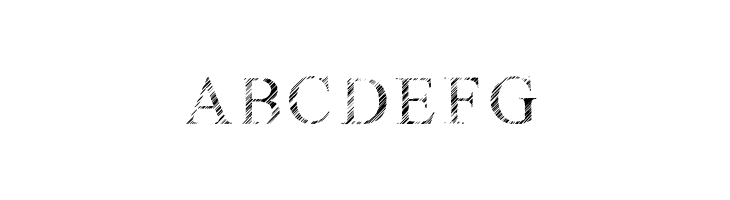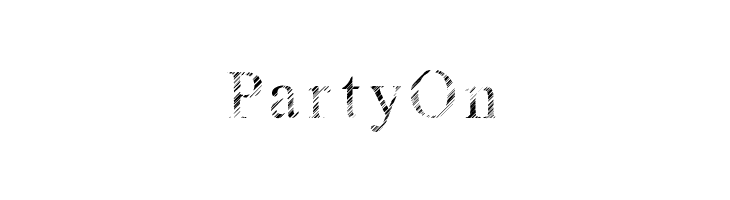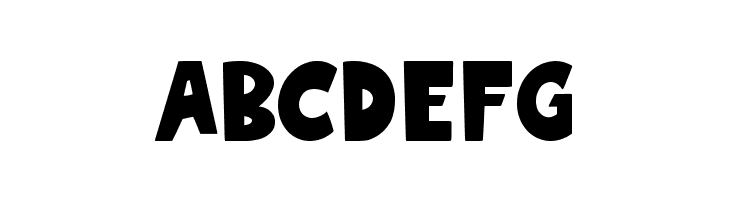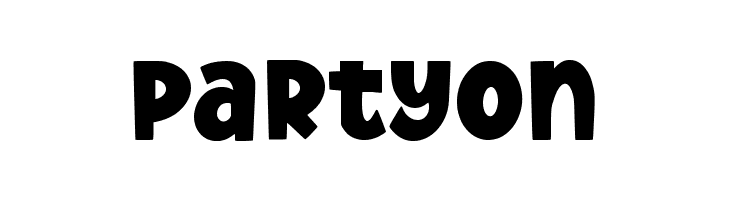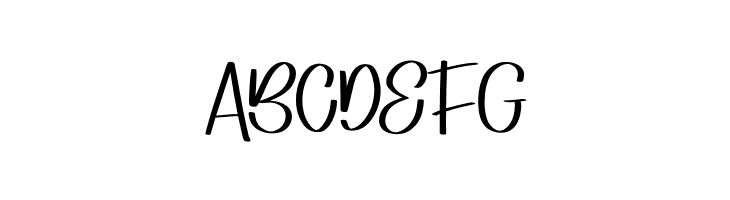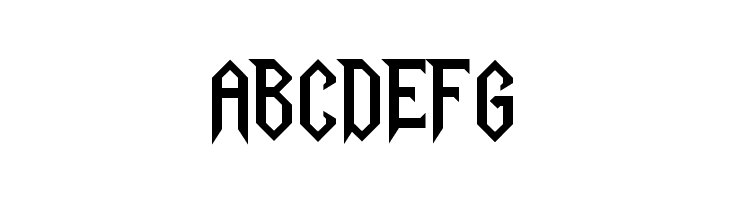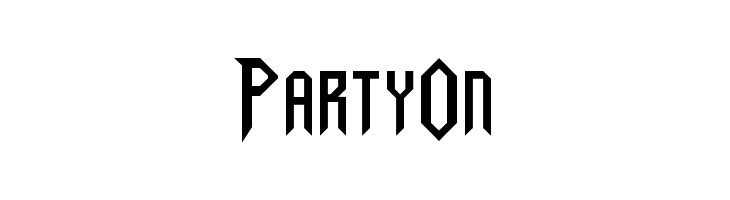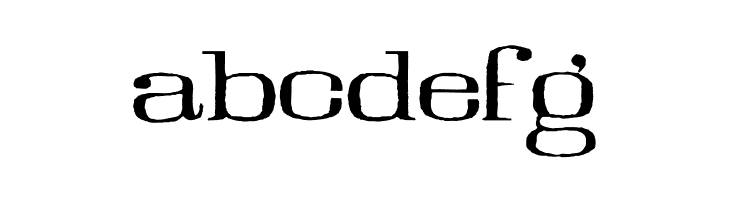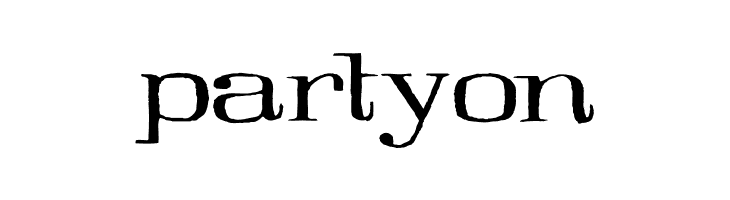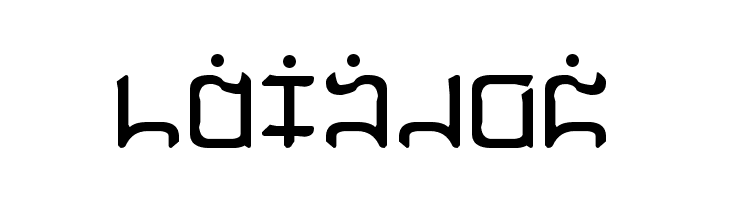
A playful, casual handwritten font with smooth, flowing lines and a personal touch.
A bold, geometric font with a futuristic, digital style.
A bold, playful font with chunky, rounded characters.
A bold, artistic font with a modern vintage aesthetic and sharp serifs.
A textured serif font with a hand-drawn, modern twist.
A decorative font with bold, geometric shapes and an ancient, mystical style.
A bold, angular font with a gothic, medieval aesthetic.
A bold, angular italic font with a dynamic and modern style.
A bold, geometric font with a modern, tech-inspired aesthetic.